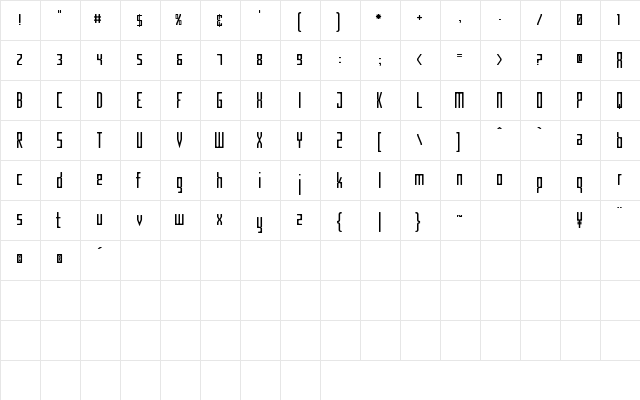
Criminal Narrow Font Preview
Criminal Narrow
Criminal Narrow Font Details
Design Context for Criminal Typeface
Criminal takes a measured approach to typography — its balanced proportions and neutral character make it a reliable workhorse for both digital and print work. Its narrow stance lets it pack a punch even in space-constrained designs.